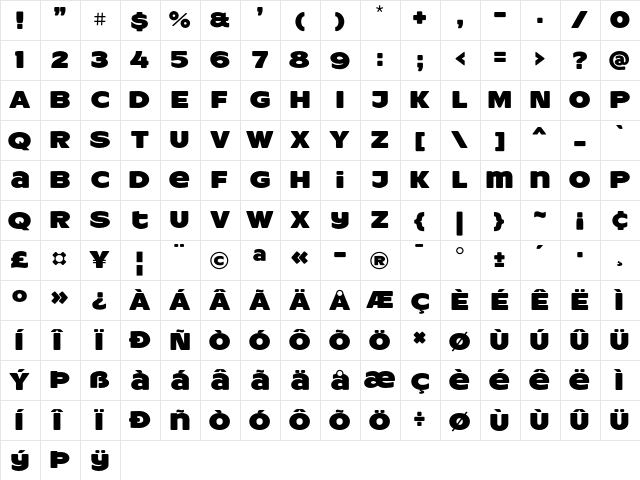
ResotYg PERSONAL USE Regular
| Foundry | gluk |
| Designer | gluk |
Design Context for ResotYg PERSONAL USE Typeface
ResotYg PERSONAL USE takes a measured approach to typography — its balanced proportions and neutral character make it a reliable workhorse for both digital and print work.